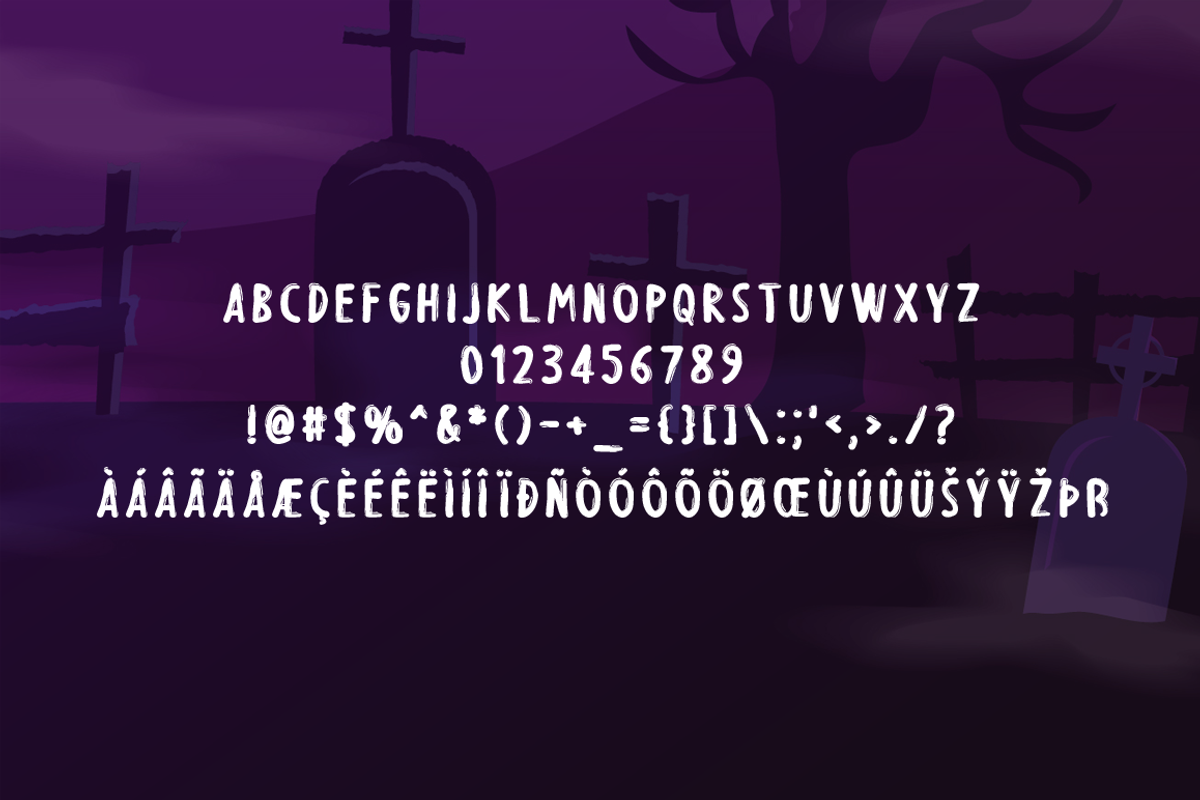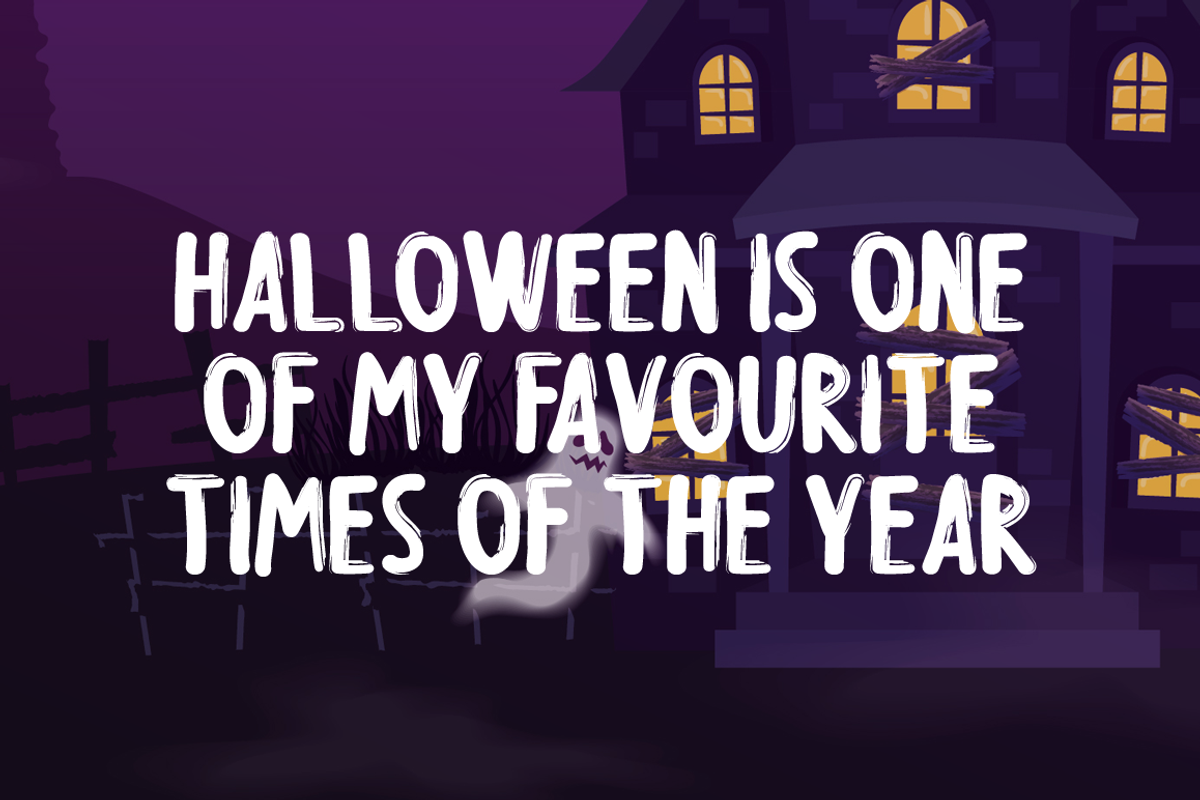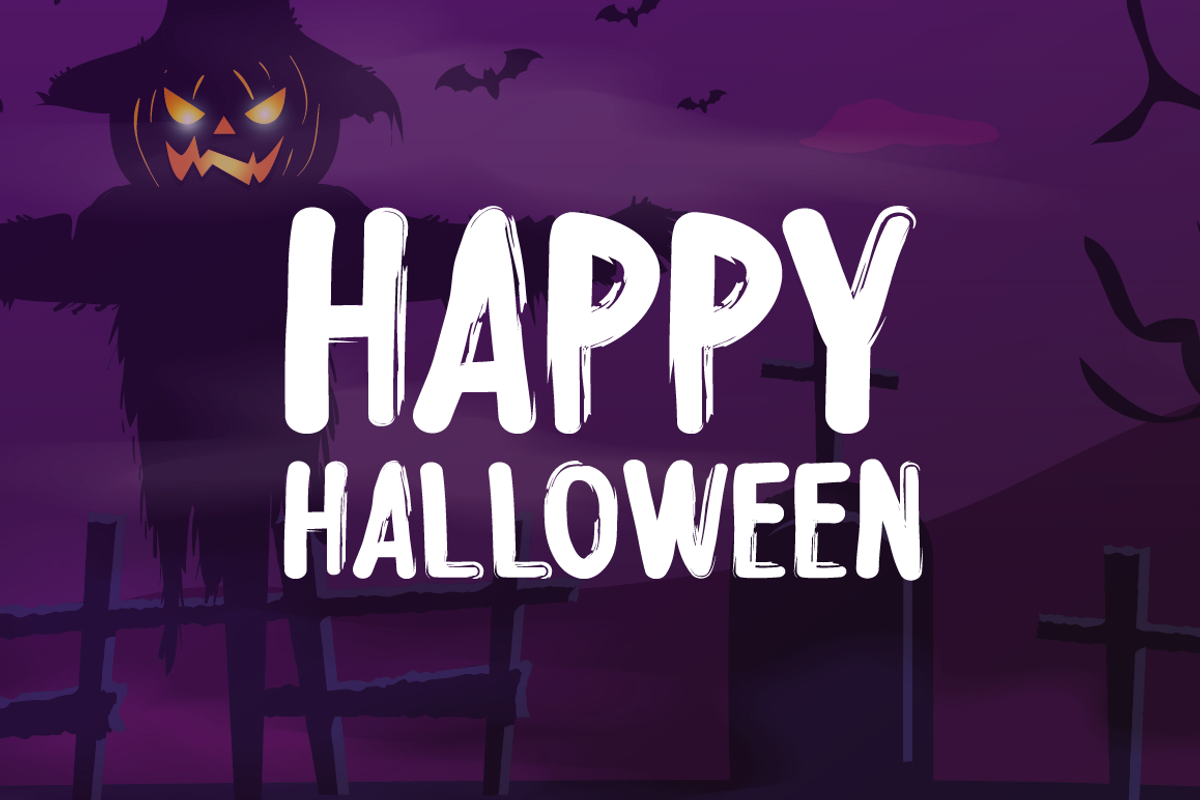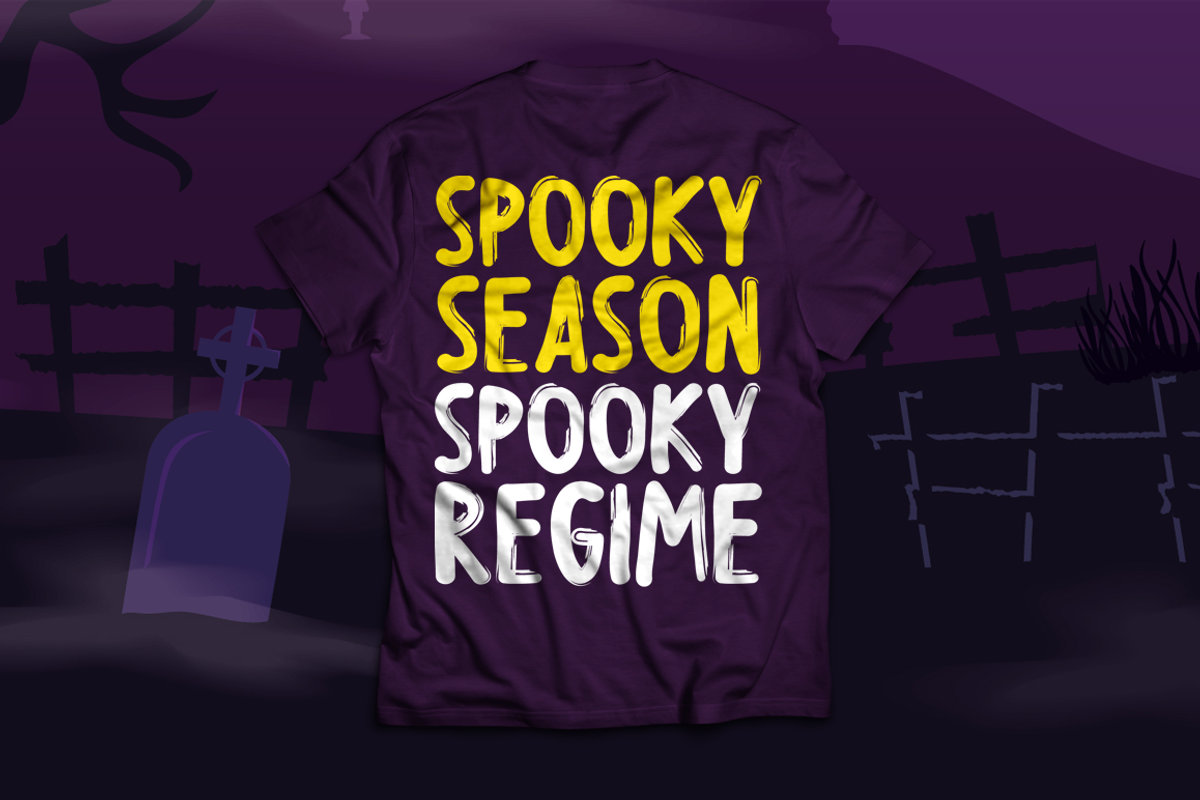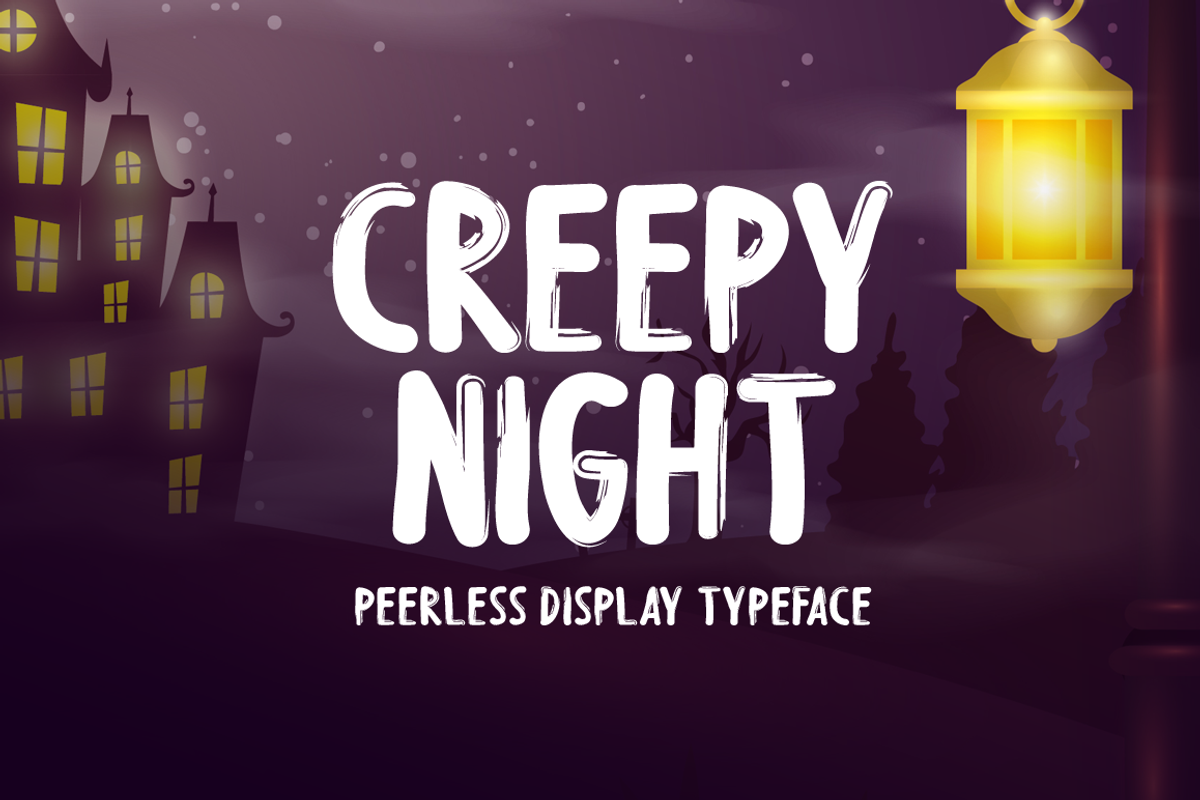
Creepy Night Typeface
Introducing Creepy Night!
Creepy Night is a fascinating display font. With captivating characters and an easily readable style, this typeface can be used for any project, creepy or not!
Includes a range of multilingual support